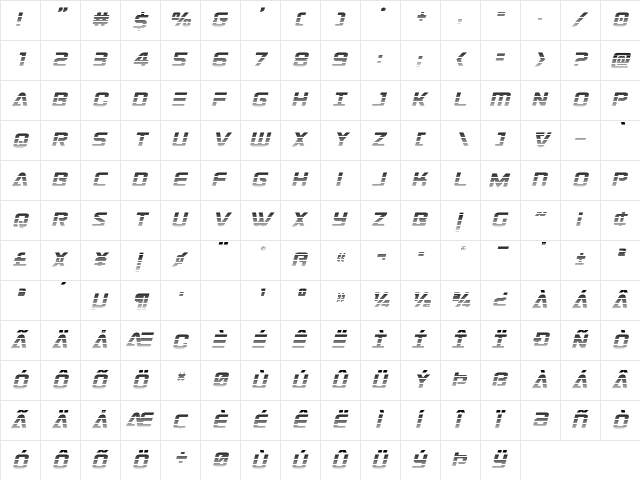
Astro Armada Gradient 2 Italic Regular
Design Context for Astro Armada Gradient 2 Italic Typeface
Astro Armada Gradient 2 Italic takes a measured approach to typography — its balanced proportions and neutral character make it a reliable workhorse for both digital and print work. The slanted form adds forward momentum and visual energy.
Pro Tip: Use Astro Armada Gradient 2 Italic for emphasis, pull quotes, and subheadings where its slanted energy can add rhythm to the layout.